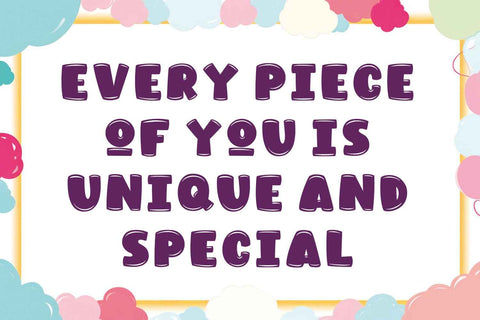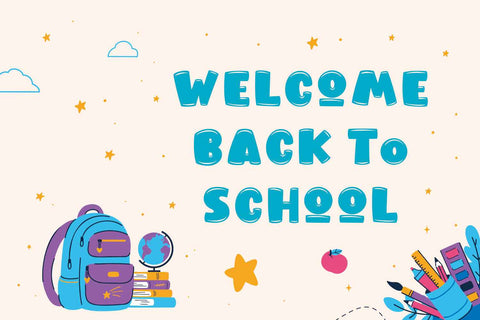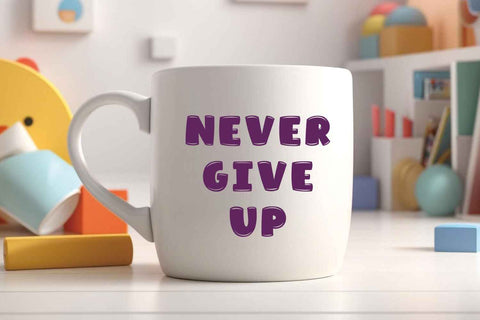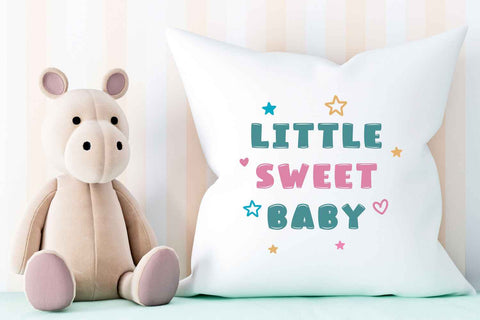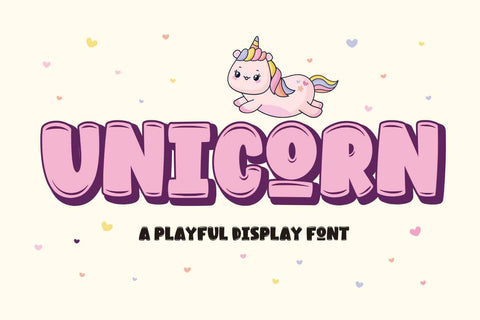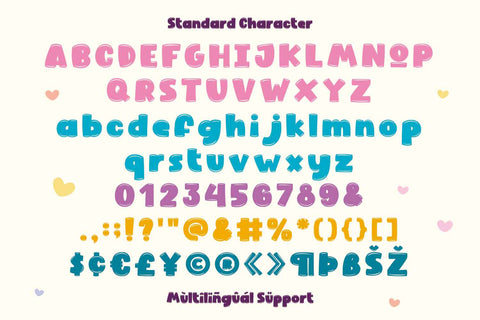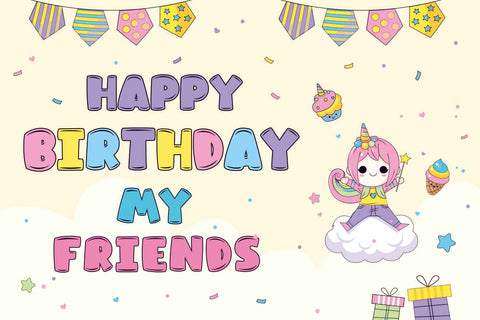
UNICORN
Introducing UNICORN, the font that will sprinkle a touch of magic onto every celebration, be it birthdays, back-to-school events, or crafting endeavors! With its display style, UNICORN brings forth an enchanting blend of cuteness, fun, and quirkiness that is perfect for capturing the youthful spirit of children's writing and crafting projects alike. Its playful curves and whimsical details add a delightful charm to everything from greeting cards to decorations, making each creation an expression of joy and creativity.
Get ready to infuse your projects with a burst of color and whimsy as you embark on a journey with UNICORN! Whether you're crafting heartfelt birthday wishes, decorating a classroom for the new school year, or adding a personalized touch to your child's artwork, this font is your ultimate companion. Let your imagination take flight as you explore the endless possibilities of UNICORN's adorable lettering, perfect for embroidery, crafting, and creating memorable keepsakes.